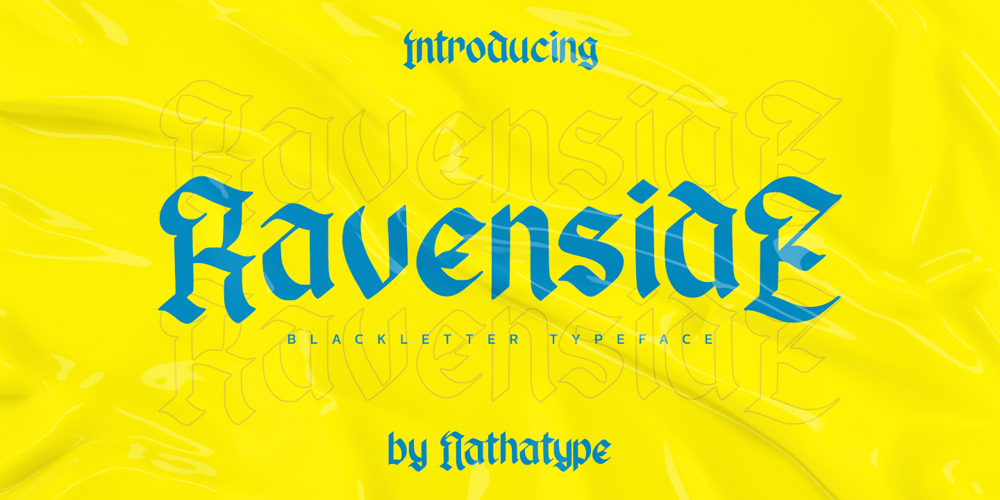
Ravenside Font Family was designed by Donis Miftahudin and published by Nathatype. Ravenside contains 1 styles and family package options. Wanna make your branding spark? Do you sometimes have an appetite for a bit more wholesome typography? Looking for a gorgeous and stylish font? We’ve got what you want.Ravenside – A Blackletter FontRavenside is a blackletter font with classy, elegant and vintage feel character set. This font is inspired by various fonts and elements. To create the beautiful combination, just mix the uppercase and lowercase then mix with the alternative glyphs. A real head-turner for your presentation, designs, branding, quotes, invitation, website illustrations, and much more.Our font always includes Multilingual Support to make your branding reach a global audience. Features: PUA Encoded Numerals and Punctuation Thank you for downloading premium fonts from Natha Studio